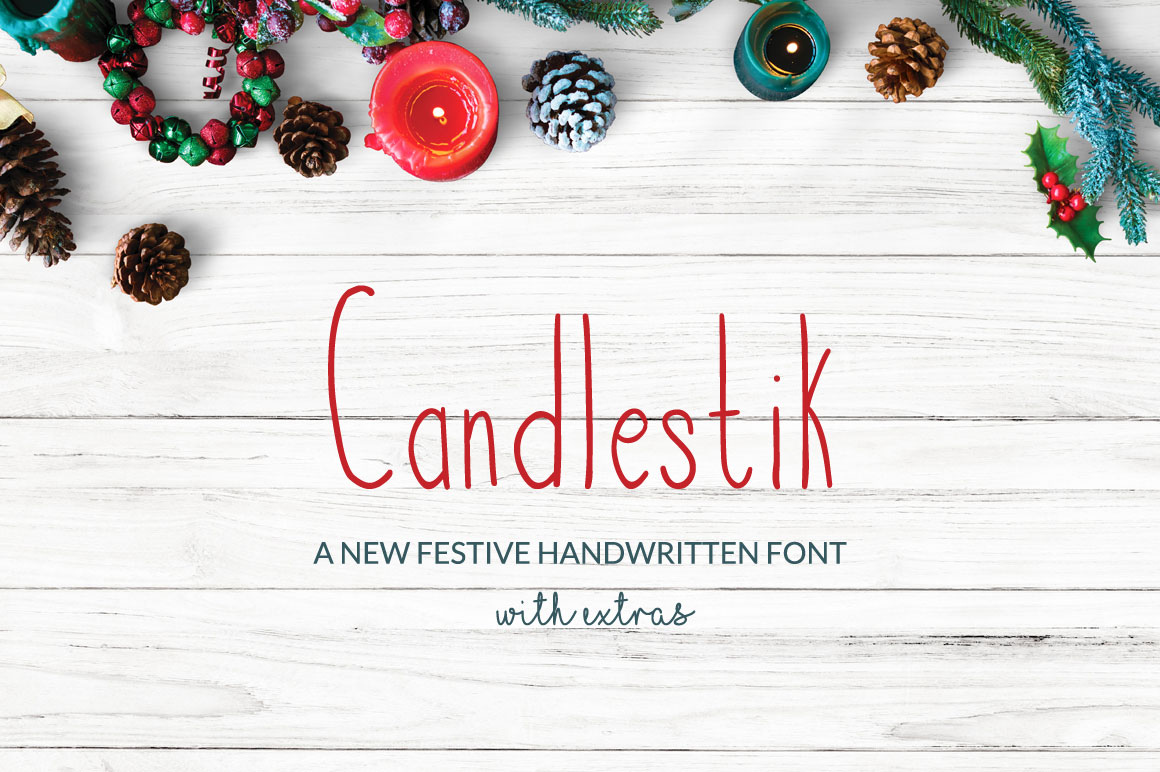
Candlestik Christmas Font & Extras
Candlestik Christmas Font is perfect for holiday greeting cards, Christmas marketing campaigns, seasonal packaging design, festive event invitations, holiday restaurant menus, winter celebration materials, Christmas-themed branding, seasonal retail signage, and warm holiday decorations.
What makes Candlestik Christmas Font exciting is its enchanting ability to capture the magical warmth and cozy intimacy of candlelit Christmas celebrations through beautifully crafted letterforms that evoke flickering flames and holiday traditions. The font features elegant, flowing shapes with gentle curves that mirror the graceful dance of candlelight, creating an atmosphere of comfort, tradition, and seasonal joy. Its sophisticated yet approachable character makes it perfect for brands that want to communicate the timeless elegance of Christmas traditions while creating memorable experiences that celebrate the warmth and togetherness of the holiday season.
Candlestik Christmas Font family includes various festive weights such as Light, Regular, and Bold variations, often featuring Christmas-inspired alternates and holiday decorative elements. The family may include seasonal symbols, festive ornaments, and candlelight-themed ligatures that enhance the font's holiday aesthetic, providing designers with comprehensive options for creating heartwarming typographic compositions that capture the spirit of Christmas celebration.